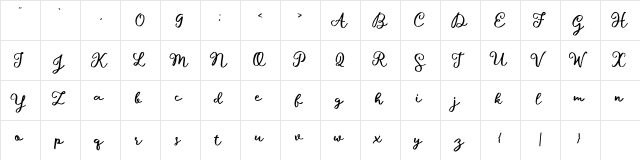
Hillary Script Demo Regular
Design Context for Hillary Script Demo Typeface
Hillary Script Demo flows with the natural rhythm of handwritten lettering, making it ideal for designs that call for warmth and personal expression.
Font Pairing: Combine Hillary Script Demo with a simple geometric sans for maximum contrast — the tension between flowing curves and clean structure is a classic typographic pairing.
Pro Tip: Pair Hillary Script Demo with a clean sans-serif for supporting text. The contrast between fluid script and geometric structure creates an elegant typographic hierarchy.